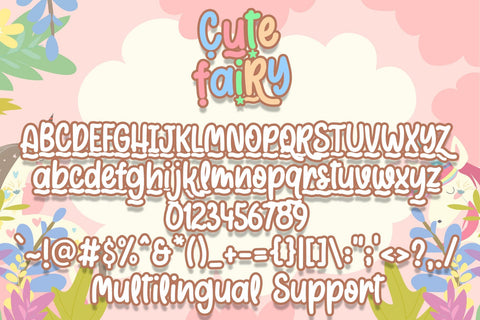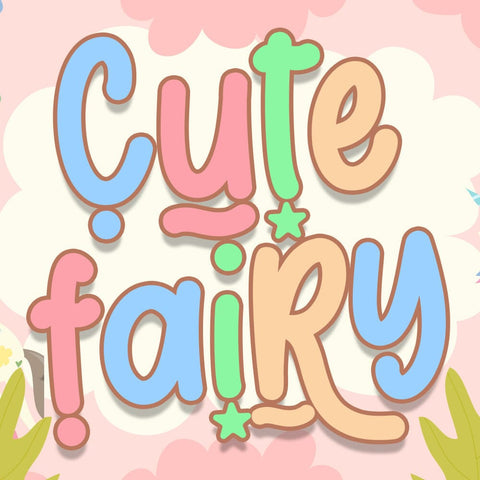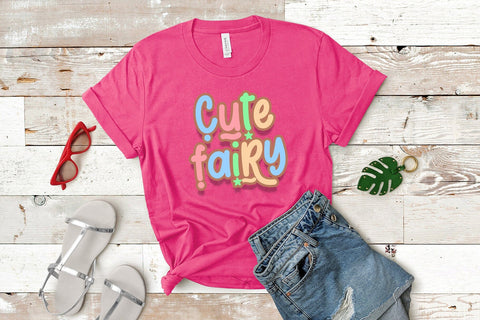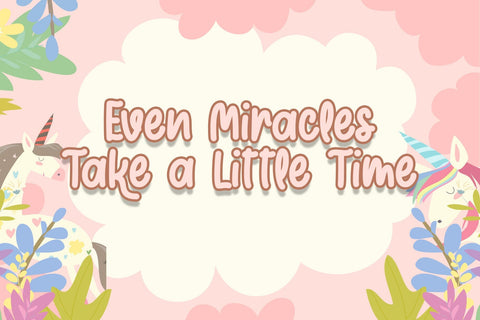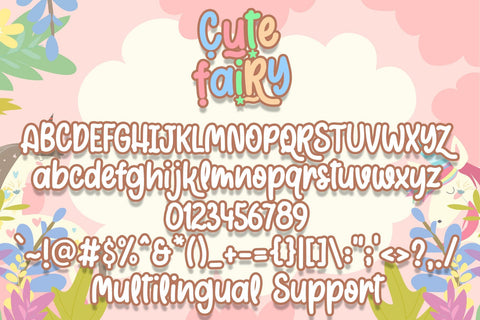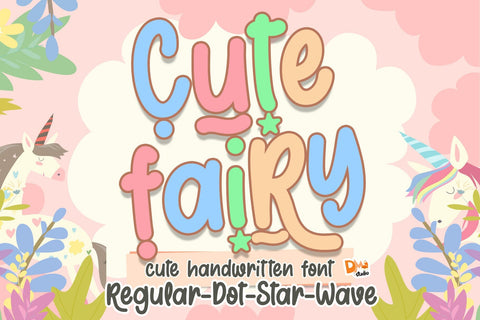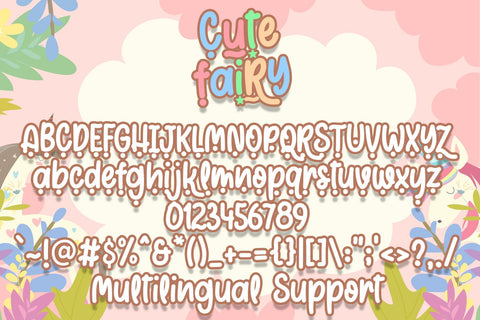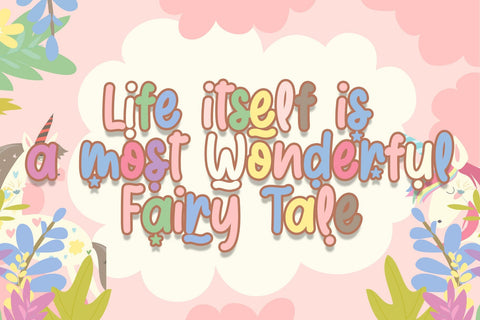
Cute Fairy Font
Introducing the Cute Fairy Font, a whimsical and enchanting typeface that brings a touch of magic to your designs. Inspired by the charm of fairies, this font is perfect for adding a playful and delightful atmosphere to your projects. Crafted with attention to detail, the Cute Fairy Font is versatile and well-suited for a variety of creative endeavors.
- Enchanting Design: The Cute Fairy Font features charming and graceful letterforms inspired by the world of fairies, making it ideal for projects that require a magical and delightful touch.
Usage:
- Children's Books and Products: Create captivating and child-friendly designs for books, illustrations, and products with the playful Cute Fairy Font.
- Greeting Cards and Invitations: Infuse a touch of magic into your invitations, greeting cards, and announcements, setting a whimsical tone for special occasions.
- Brand Identity: Add a fairy-tale charm to your brand with a unique and enchanting font that stands out in logos, packaging, and promotional materials.
- Crafting and DIY Projects: Perfect for crafting projects such as stickers, scrapbooking, and other DIY creations that need a sprinkle of fairy dust.
Unleash the magic of the Cute Fairy Font in your designs. Let the enchanting letters bring a touch of whimsy and joy to your creative projects.